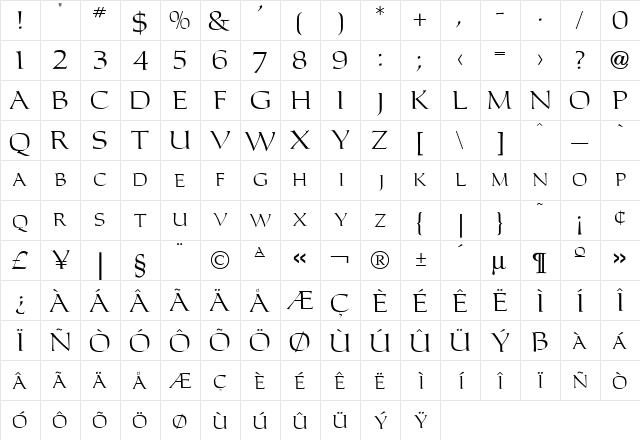
Carleton Regular
Design Context for Carleton Typeface
Carleton takes a measured approach to typography — its balanced proportions and neutral character make it a reliable workhorse for both digital and print work.